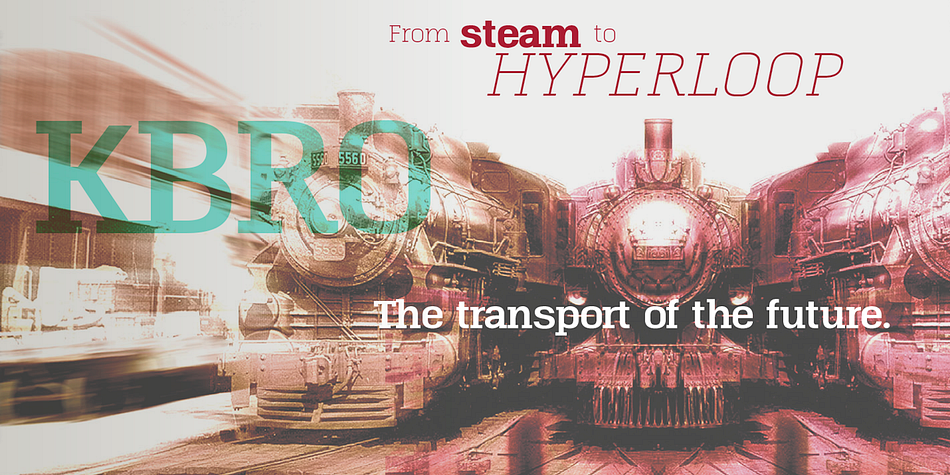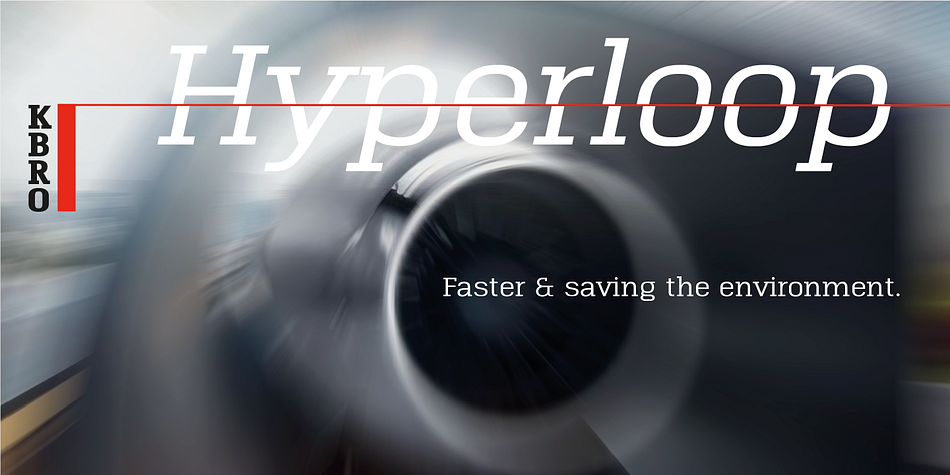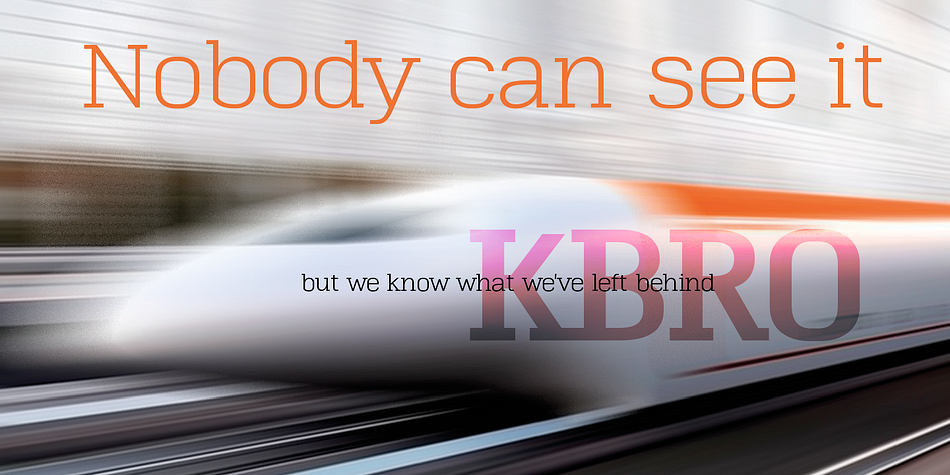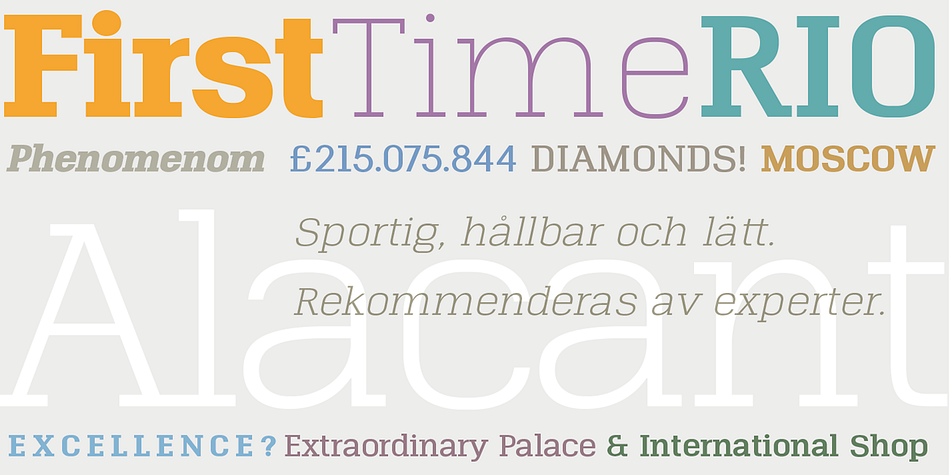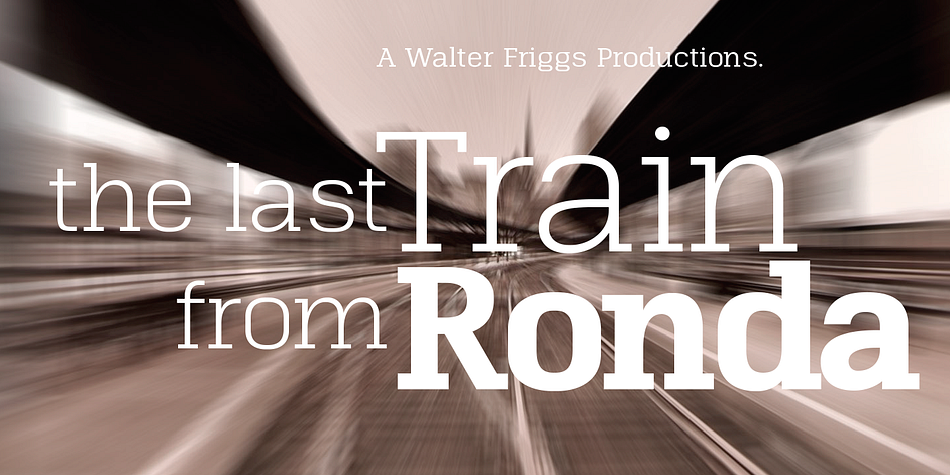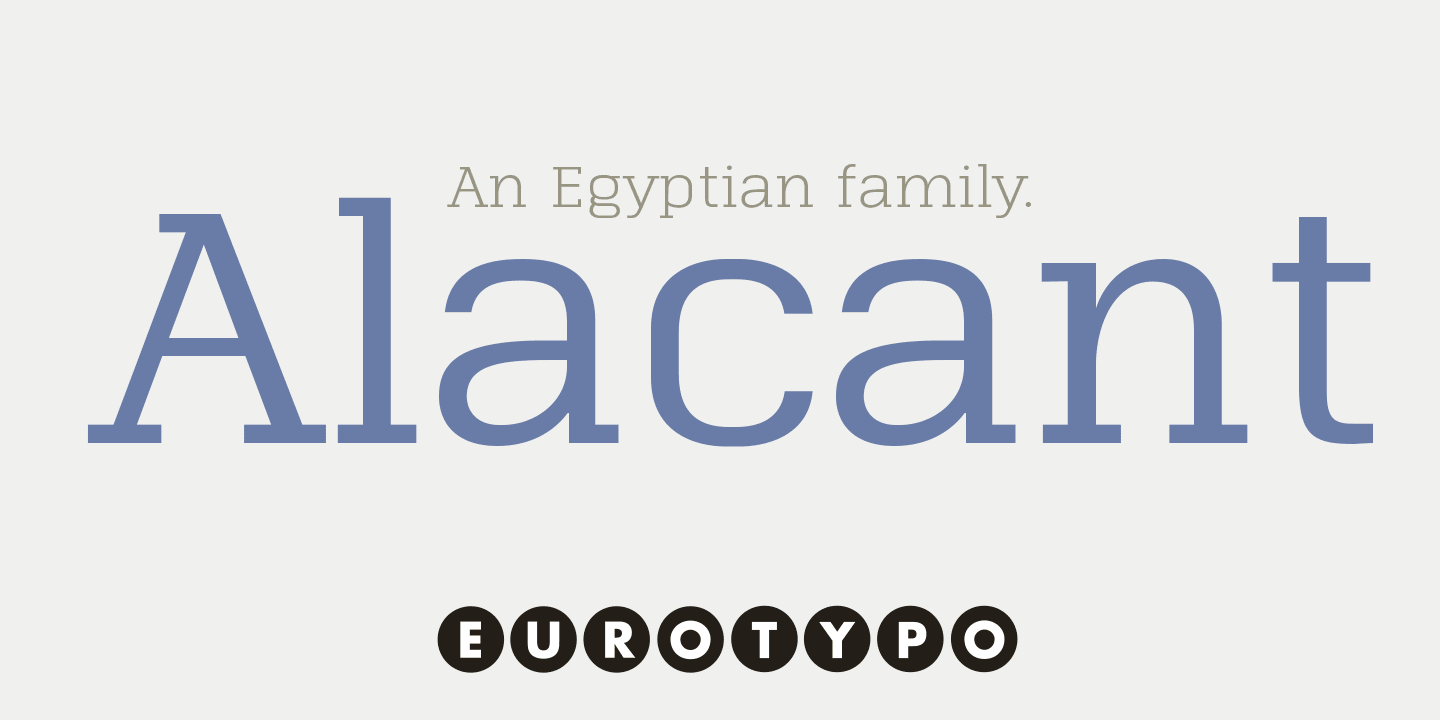
Alacant
Designed by Olcar Alcaide, Alacant is a slab serif font family. This typeface has fourteen styles and was published by Eurotypo.
Alacant is a family of slab serif fonts composed of seven weights and their versions in italics. One of the most characteristic advantages of this font is its particularly square shape, very short descenders, open counter-forms and precise kerning that provides a very good visual impact and clear legibility.